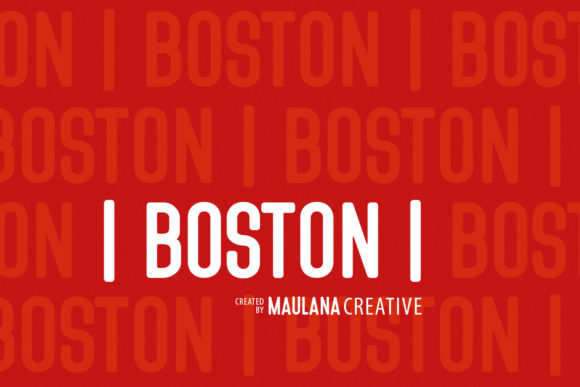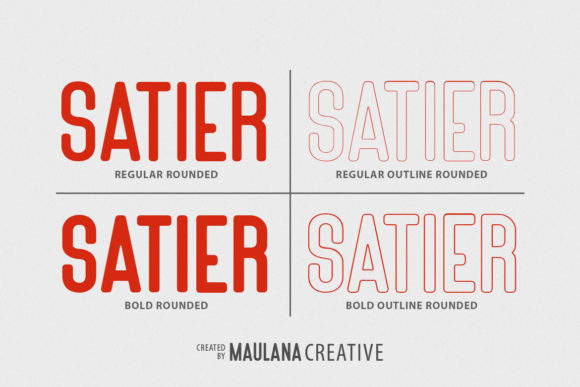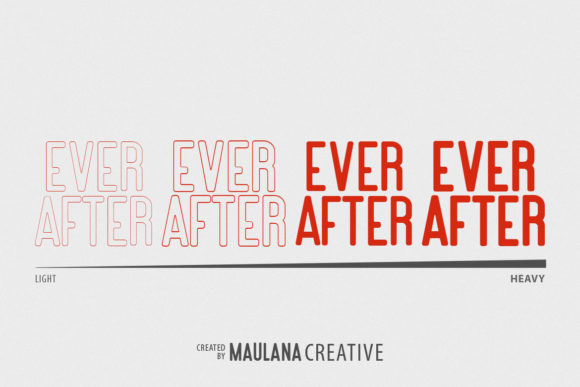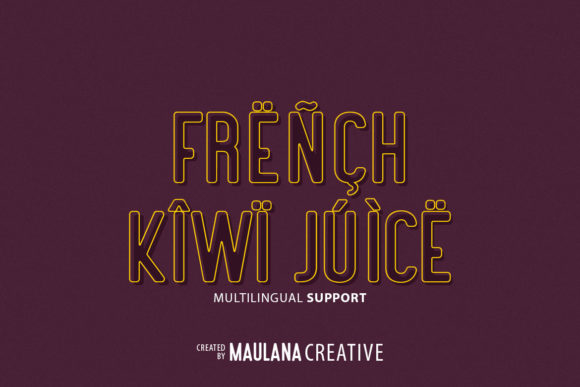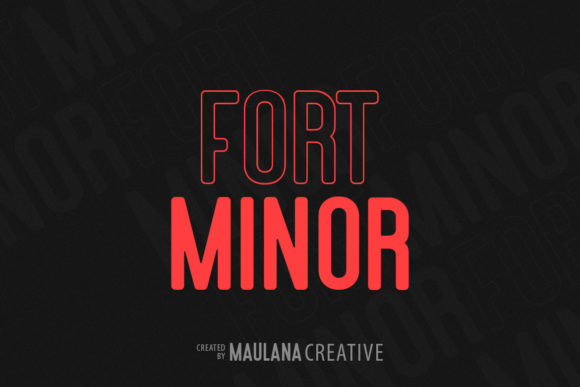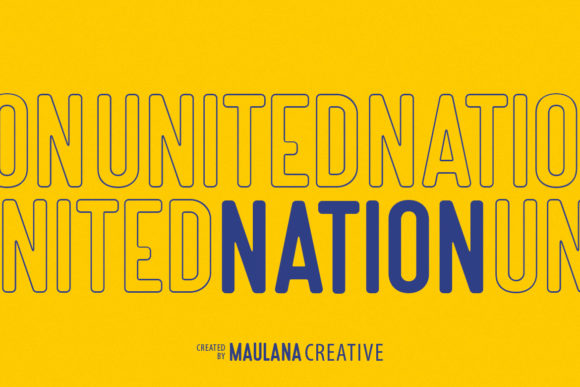
Introduction to Nubolts Font
Have you ever been working on a creative project, pouring your heart and soul into every detail, only to realize that the perfect font is missing? This is a frustration many designers face, but what if I told you that there’s a game-changing font family that can elevate your designs to the next level? Enter Nubolts Font, a bold sans serif family that’s about to become your new go-to design resource.
With its high-quality design and transparent background, Nubolts Font is the perfect addition to any creative project. Whether you’re working on a magazine, film, website, or even a t-shirt design, this font family has got you covered. Its range of distinct styles, including Outline, Outline Bold, and Solid, makes it versatile and adaptable to any design need.
Key Features of Nubolts Font
- High-quality, professional font suitable for various creative projects, including digital art and graphic design.
- Features a transparent background, allowing for seamless integration with various design elements and backgrounds.
- Includes a wide range of characters, including uppercase and lowercase letters, numbers, and special symbols.
- Designed with a unique, modern aesthetic, making it perfect for contemporary design projects.
Honest Review: Nubolts Font
I recently came across the Nubolts Font, and I must say, it’s been a game-changer for my creative projects. As a designer, I’m always on the lookout for high-quality design resources that can elevate my work.
Here are some aspects that work well for me:
- ✨ Unique and playful style that adds a touch of whimsy to my designs
- ✨ High-quality fonts that are perfect for digital and print materials
- ✨ Transparent background option, making it easy to layer and composite
However, I do have a few limitations to mention:
- ⚠️ Limited font family options, which may not be suitable for larger design projects
- ⚠️ Some fonts may not be optimized for web use, requiring additional processing
Overall, I’m impressed with the Nubolts Font. It’s a fantastic addition to my design resource library, and I highly recommend it to fellow designers. With its unique style and high-quality fonts, it’s perfect for creative projects that require a touch of personality.
Tips for Getting the Most Out of Nubolts Font
Experiment with different font sizes, colors, and styles to get the most out of the Nubolts Font. Use it in combination with other design resources to create a unique and eye-catching design. The high-quality design of the Nubolts Font makes it perfect for use in a variety of creative projects.
The Nubolts Font is perfect for use in a variety of creative projects, including presentations, documents, social media graphics, and more. Its transparent background feature makes it ideal for use in vector graphics and illustrations. With its high-quality design and free download feature, the Nubolts Font is a great design resource for anyone looking to add a touch of creativity to their designs.